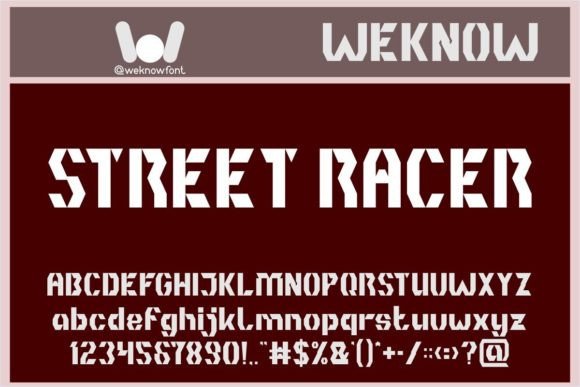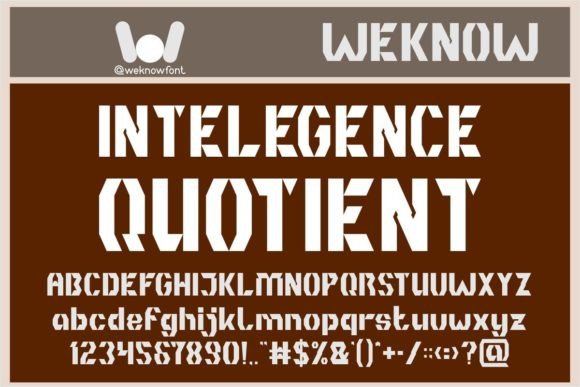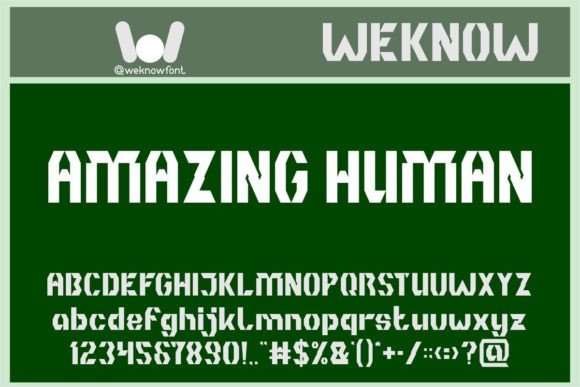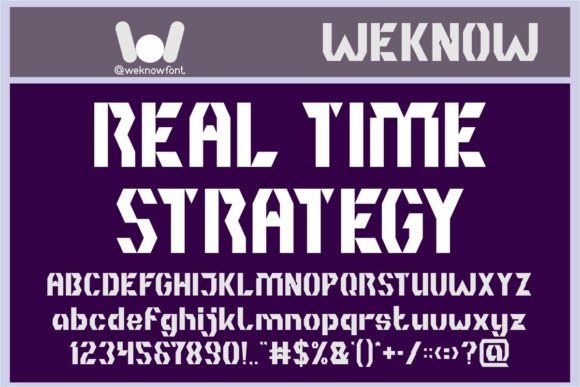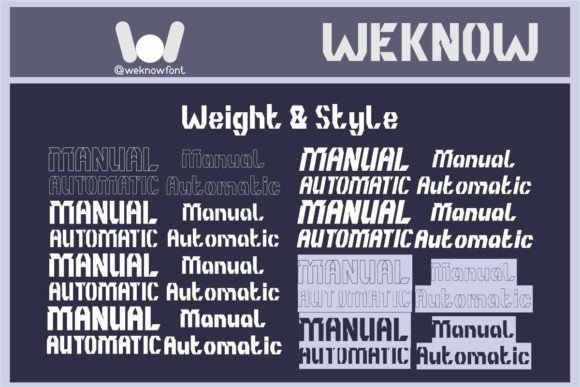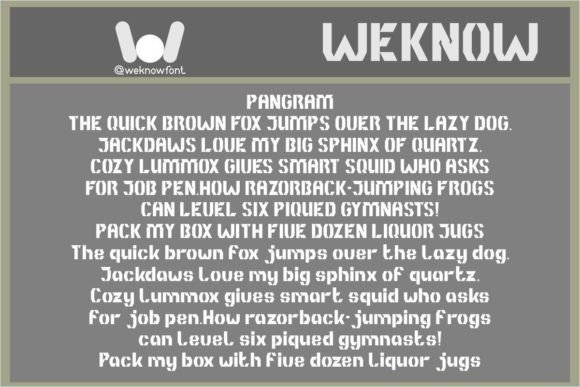
Introduction to Manual Automatic Font
Have you ever stumbled upon a design that sparks an idea and sets your creative wheels in motion? For designers, it’s that moment of inspiration that propels us forward. For us, it’s the Manual Automatic Font. This high-quality font is a game-changer, breathing life into machines, robots, and futuristic displays. As a valuable design resource, Manual Automatic Font is perfect for distinctive logo creations, attention-grabbing headlines, or solidifying a corporate identity.
Key Features of Manual Automatic Font
- High-quality design resource with a wide range of fonts for creative projects, including logos, posters, and more.
- Unique, hand-drawn design elements with a transparent background, allowing for seamless integration into any design project.
- Perfect for designers who want a creative, yet professional-looking font for their projects, including business cards, brochures, and websites.
- Easy to customize and edit, making it a versatile design resource for both beginners and experienced designers.
Honest Review: Manual Automatic Font
I recently stumbled upon the Manual Automatic Font and I must say it’s been a game-changer for my design projects. As a designer, I’m always on the lookout for high-quality design resources that can elevate my work and help me create something truly unique.
- ✨ High-quality design with a unique aesthetic that sets it apart from other fonts.
- ✨ Transparent background makes it easy to work with and allows for seamless integration with other design elements.
While the Manual Automatic Font has its strengths, there are a few limitations I’ve encountered:
- ⚠️ Limited font sizes and styles, which can make it less versatile for certain projects.
- ⚠️ Some users may find the font’s unique aesthetic challenging to work with, especially for more conservative design styles.
Overall, I’m really impressed with the Manual Automatic Font. Its high quality and unique design make it a valuable addition to any designer’s toolkit. While it may have some limitations, I believe it’s well worth the download and experimentation.
Manual Automatic Font is perfect for:
- Graphic design projects.
- Logo design.
- Business cards.
- Presentations.